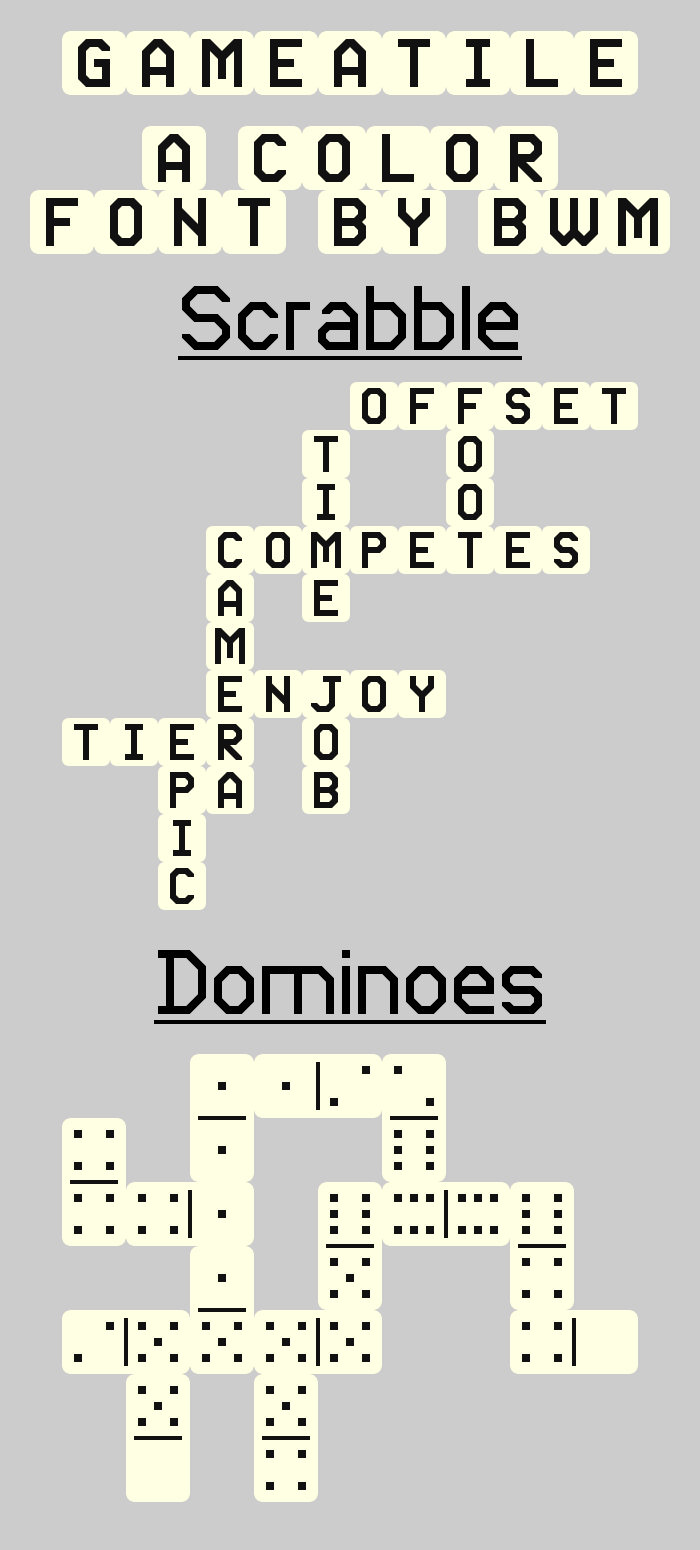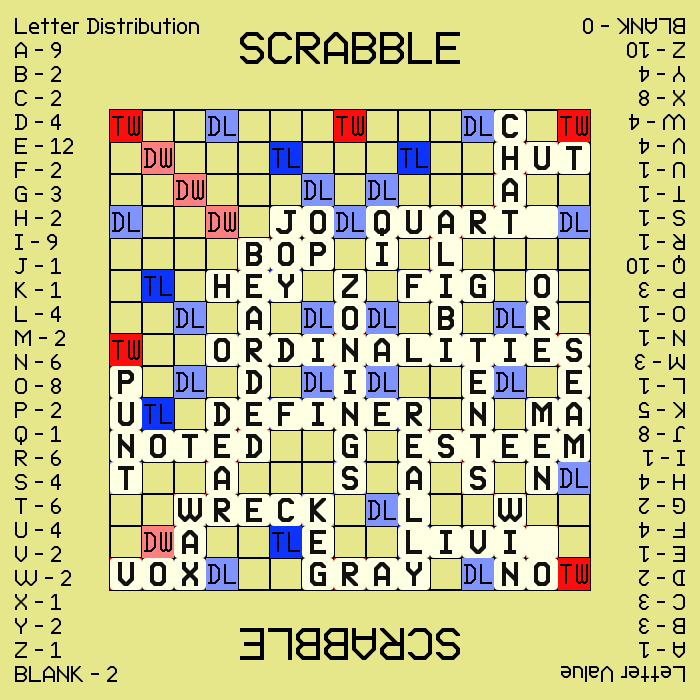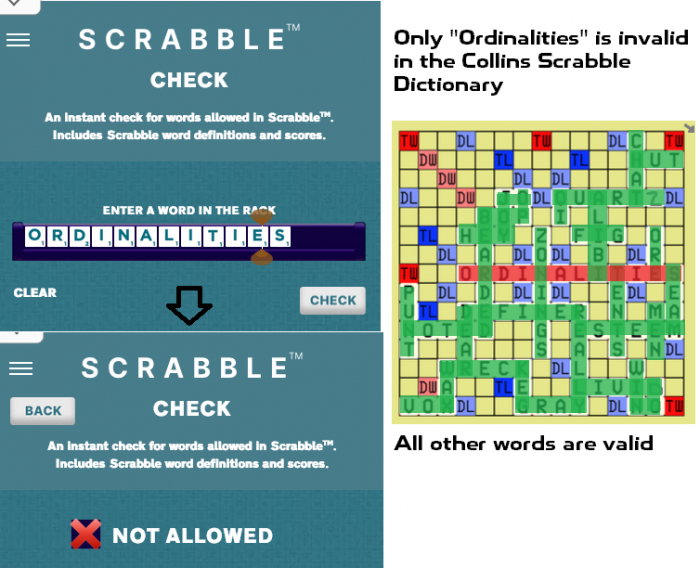
— Inspirations —
Tiles Final by JOEY_TOYS_
Dominoes by JOEY_TOYS_
Tiles and Dominoes by tredakam30
— Private Use Assignments —
E000-E7FF: My usual 7-segment and arbitrary fraction characters for monospaced fonts
E800-E81F: Single tiles for 0, and 7-18; The tiles for 1-6 are in the Miscellaneous Symbols Unicode block
E820-E83F: Top parts of dominoes
E840-E85F: Bottom parts of dominoes
E860-E87F: Left parts of dominoes
E880-E89F: Right parts of dominoes
checked every word and got this result that didnt make sense
used the collins dictionary checker (https://scrabble.collinsdictionary.com/check/)
Whoever manages the Official Scrabble Players Dictionary should probably add ordinality, and its plural form ordinalities, to the Scrabble dictionary as it means the state or condition of being ordinal, which means the position of something in a sequence or order.
when i saw it i thought "WTH"
also the blank of LIVI[]-[]O is D
and the one for QUART[] is Z